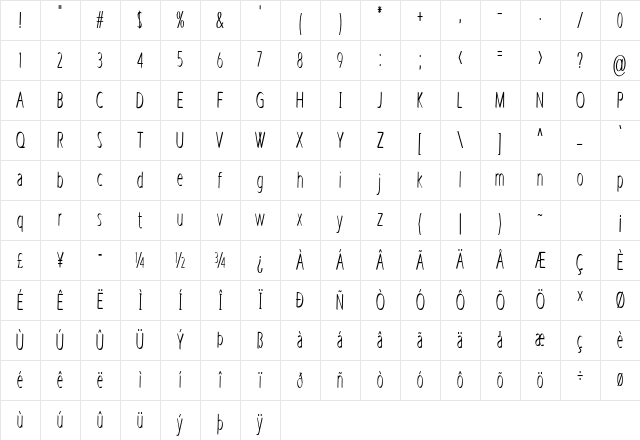
Complete Eksel Extra-condensed Regular glyph index. Displaying only characters natively supported by Eksel Extra-condensed Regular font.
Eksel is a composed and adaptable typeface that performs quietly and consistently across a wide range of design contexts. Its narrow stance lets it pack a punch even in space-constrained designs.